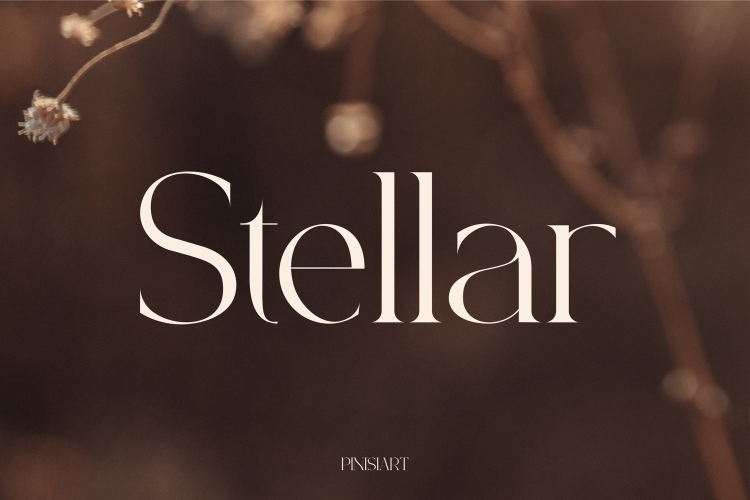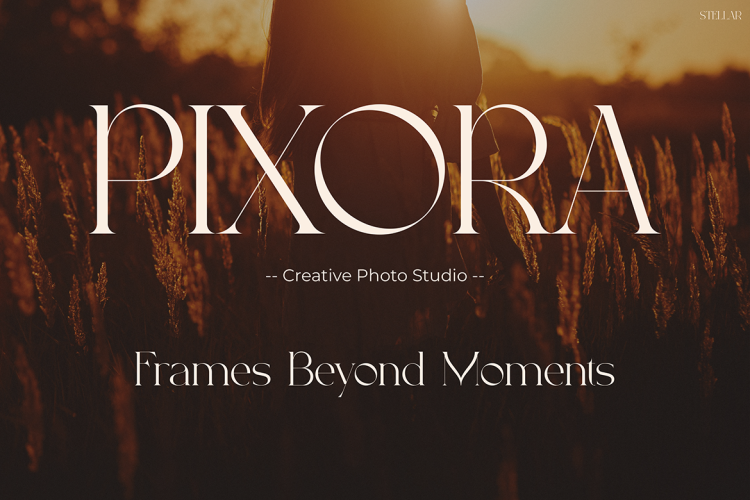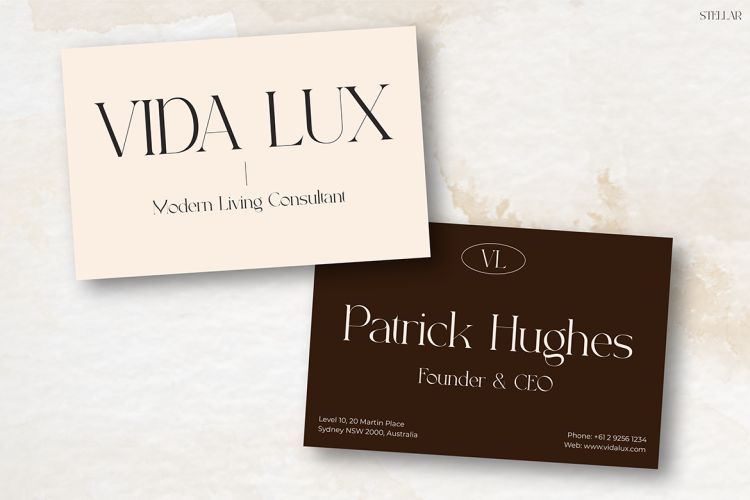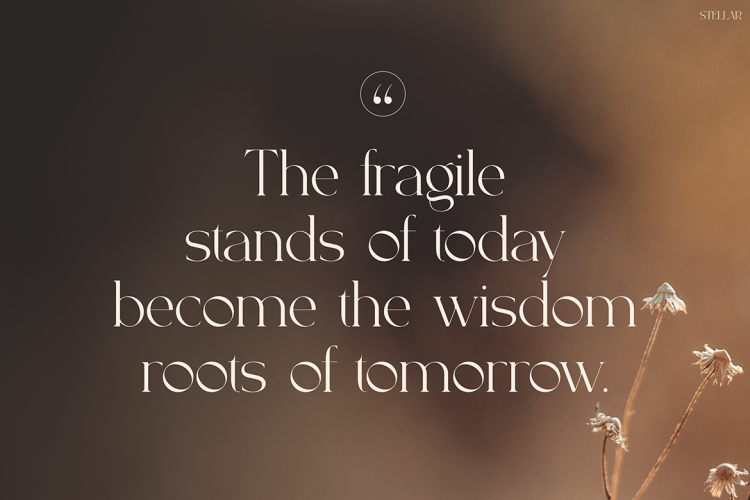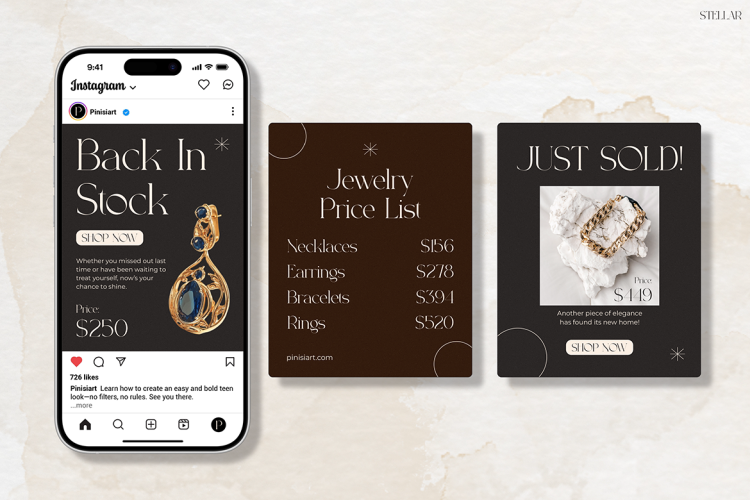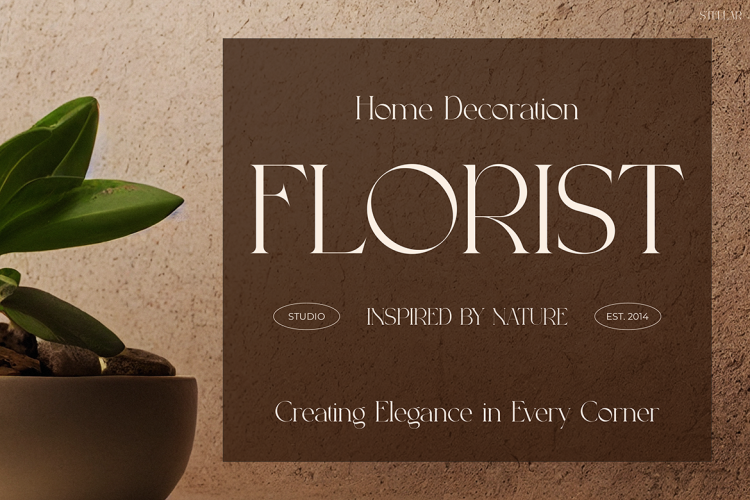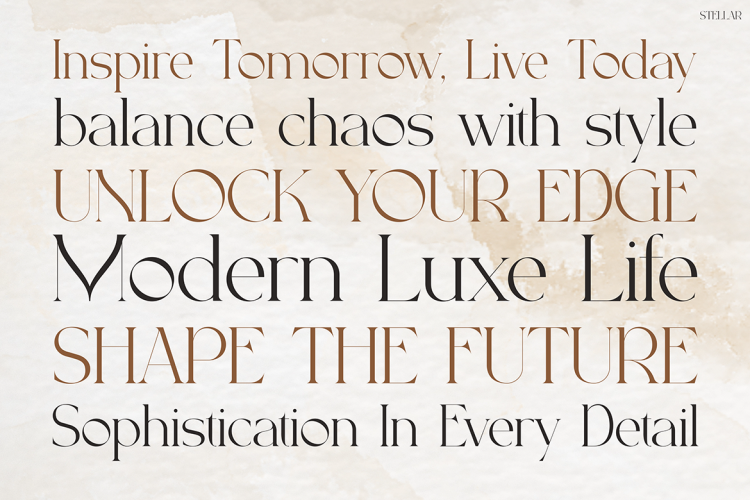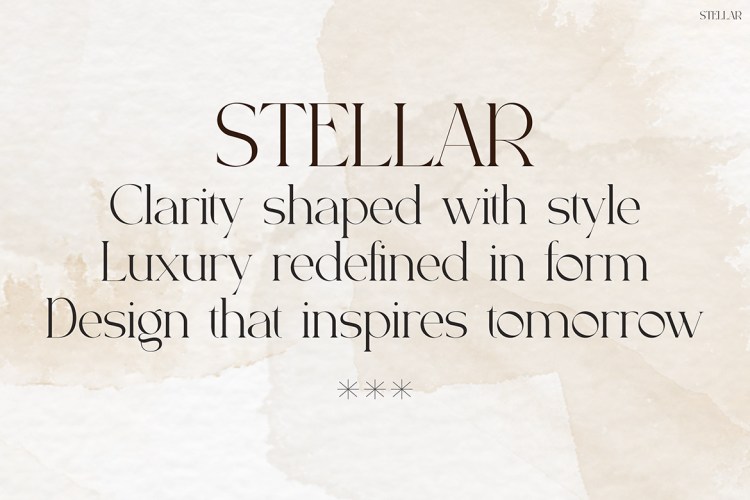
Stellar – A Blend of Modern Elegance and Timeless Appeal
Instagram Font Stellar is not just a typefaceโitโs a visual statement that immediately elevates your creative work. With its sleek curves, balanced proportions, and refined details, this font captures the perfect harmony between minimalism and sophistication. Moreover, its aesthetic stands out effortlessly, ensuring that every word feels intentional and stylish. Whether you are designing for social media, branding, or luxury marketing, Stellar brings clarity and character to your message. As a result, your projects will always look polished and professional.
Why Instagram Font Stellar is Special
What truly sets Instagram Font Stellar apart is its versatility and adaptability. In addition to its clean lines and graceful letterforms, the font can easily switch from bold statements to subtle accents. Furthermore, its refined beauty makes it ideal for high-end branding, fashion campaigns, and modern advertising projects. On the other hand, its simplicity ensures that it works just as well for minimalist layouts or digital banners. Therefore, Stellar is not just a stylish font but also a practical one. With this typeface, your designs will not only look professional but also remain timeless.Who Can Use Stellar?
- Creative Entrepreneurs โ Perfect for building a brand identity that communicates professionalism and style.
- Social Media Influencers & Marketers โ Ideal for creating Instagram posts, stories, and highlights that stand out and attract attention.
- Luxury Brands & Fashion Labels โ A great match for logos, packaging, and campaigns that need an upscale and refined typeface.
- Bloggers & Content Creators โ Adds elegance and uniqueness to digital banners, website headers, and lifestyle visuals.
- Designers & Agencies โ A versatile tool for projects ranging from editorial layouts to product design.
In addition, its polished look ensures that Stellar adapts beautifully across different industries. Therefore, whether you are building a fashion label or managing a lifestyle brand, Stellar helps your project feel modern, relevant, and unforgettable.
Closing Inspiration
In conclusion, Instagram Font Stellar is more than a typefaceโit is a design companion that inspires creativity and guarantees your message leaves a lasting impression. Furthermore, its timeless elegance and adaptability across multiple platforms make it an essential font for anyone serious about impactful visuals. If you are ready to upgrade your designs with sophistication and style, then Stellar is the perfect choice. Donโt waitโadd it to your collection today and let your projects shine with clarity and charm.